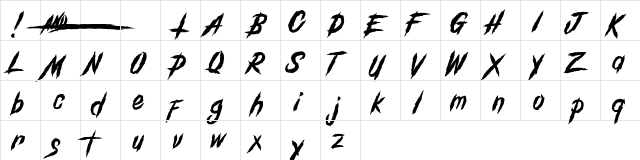
GrindAndDeath_Demo Regular
Design Context for GrindAndDeath_Demo Typeface
GrindAndDeath_Demo carries an unsettling edge — its distorted letterforms are built to unsettle, perfectly suited to horror, Halloween, and dark creative work.
Ideal for Halloween projects, horror film titles, haunted house signage, and dark editorial design.
Font Pairing: Pair with a clean neutral sans-serif for body copy to let GrindAndDeath_Demo's character lead without overwhelming the composition.
Pro Tip: GrindAndDeath_Demo works best as a headline or focal element. Pair it against plain, neutral body text to amplify the contrast.